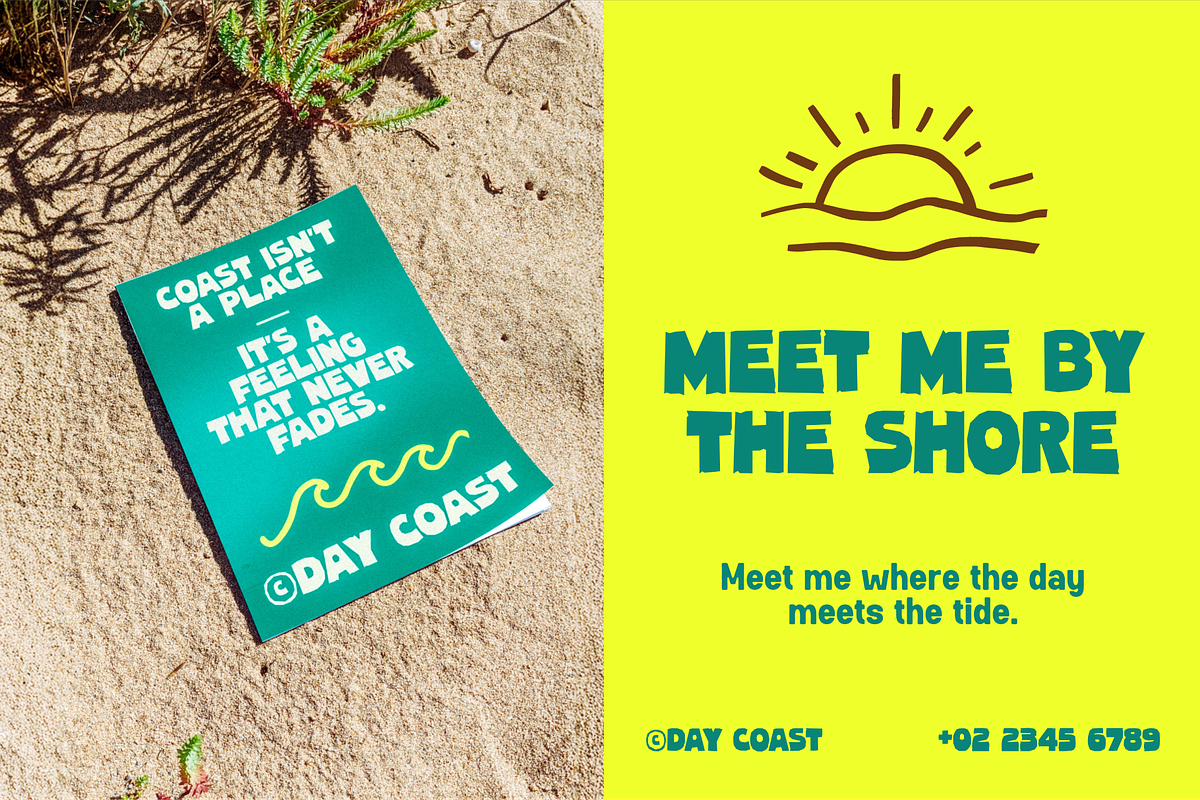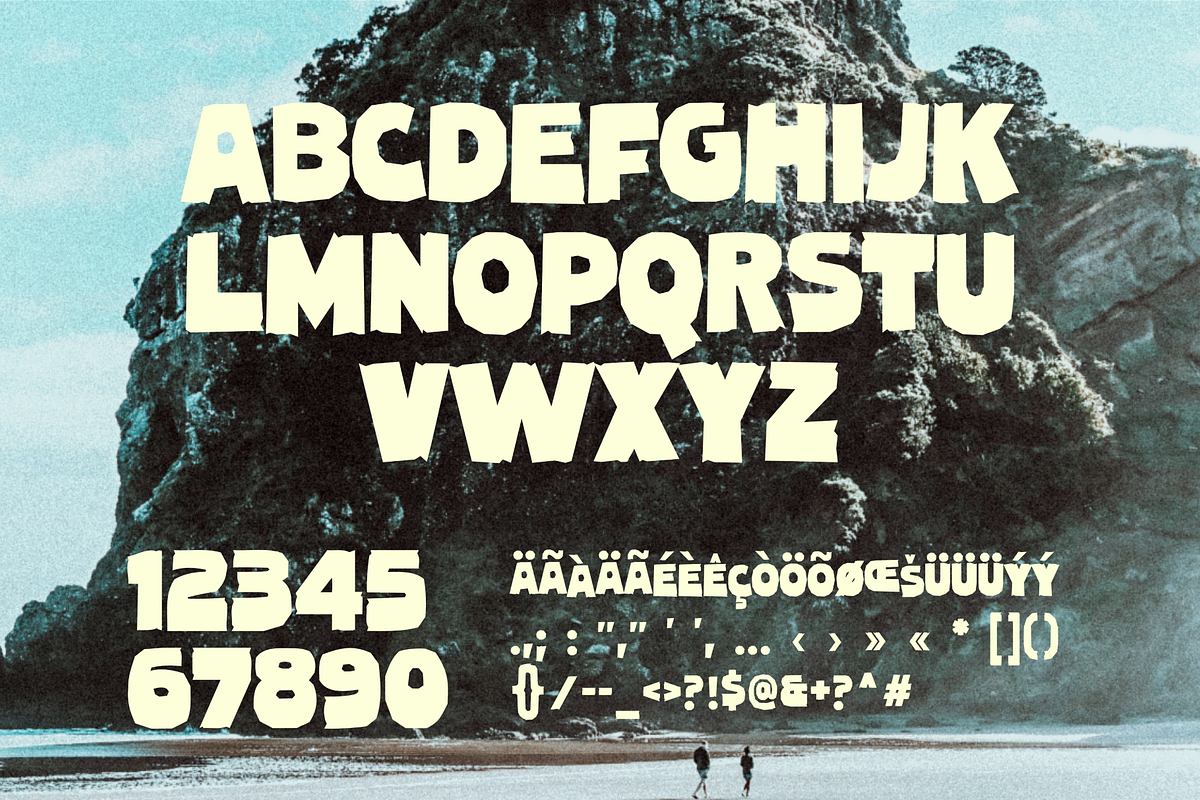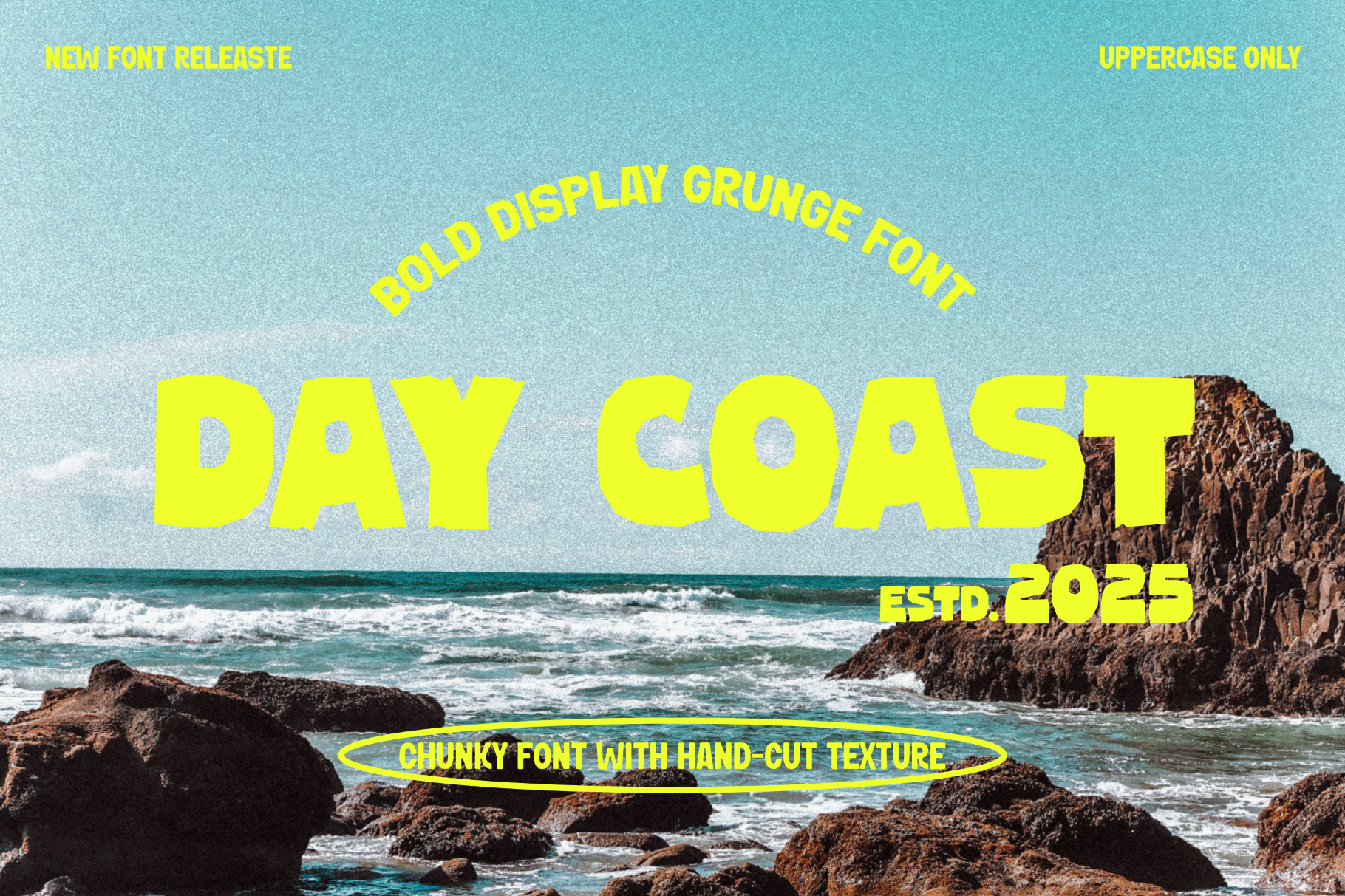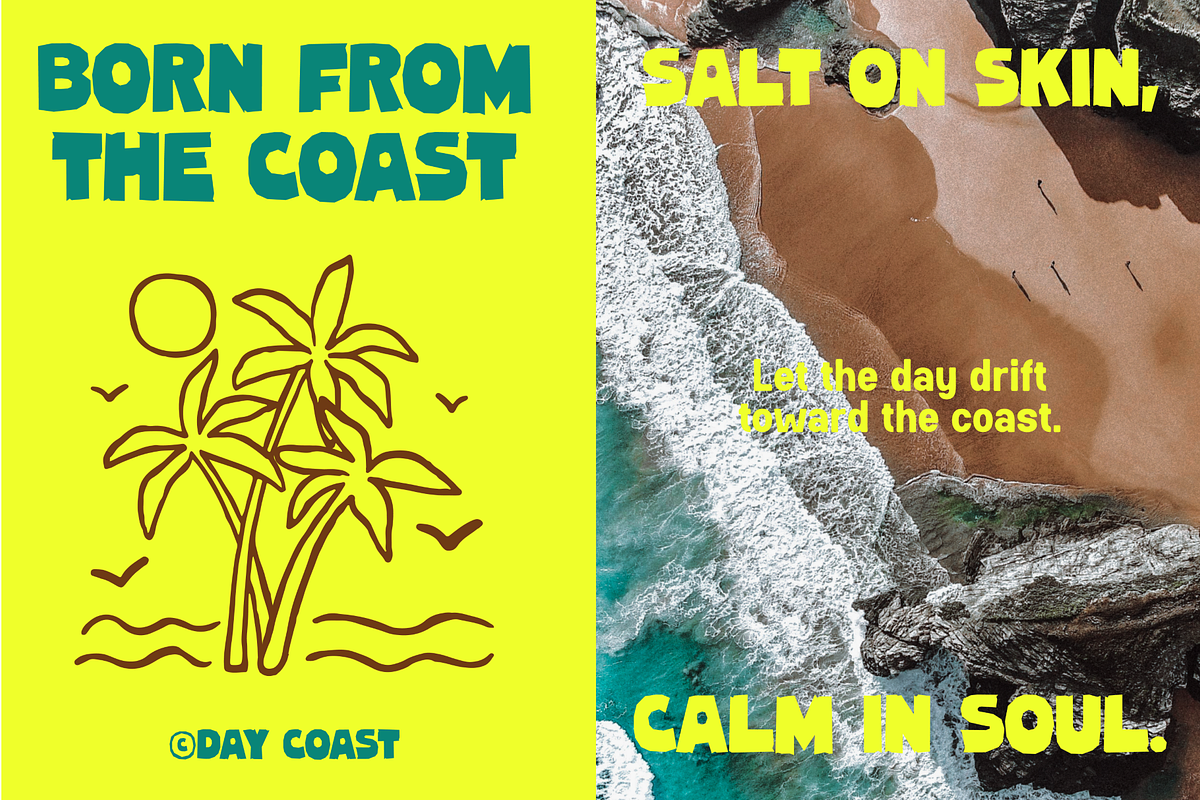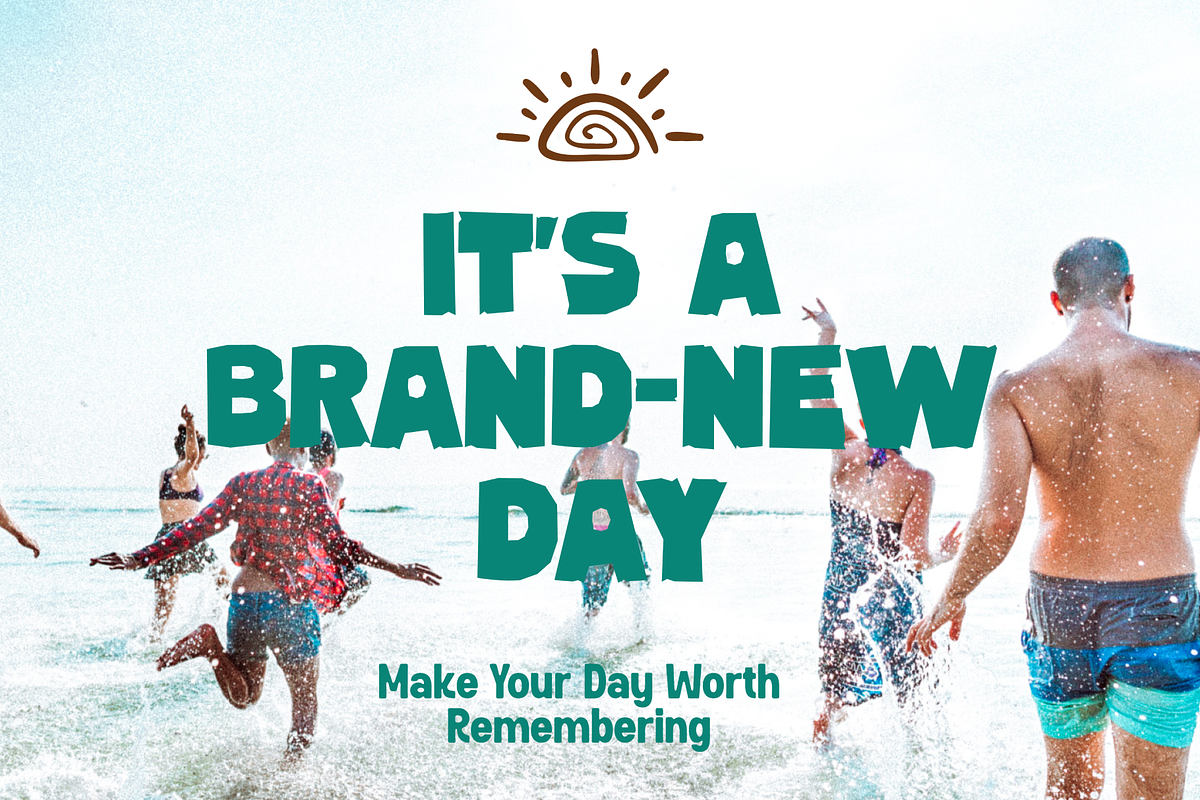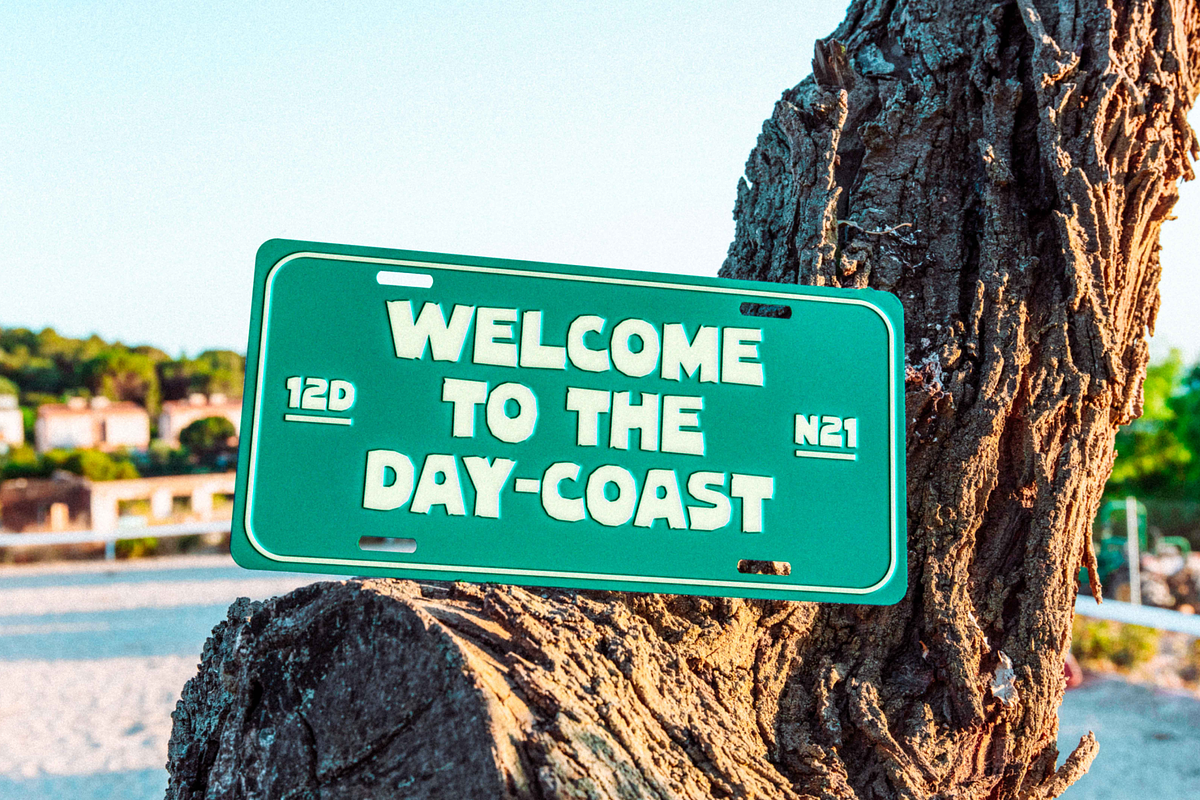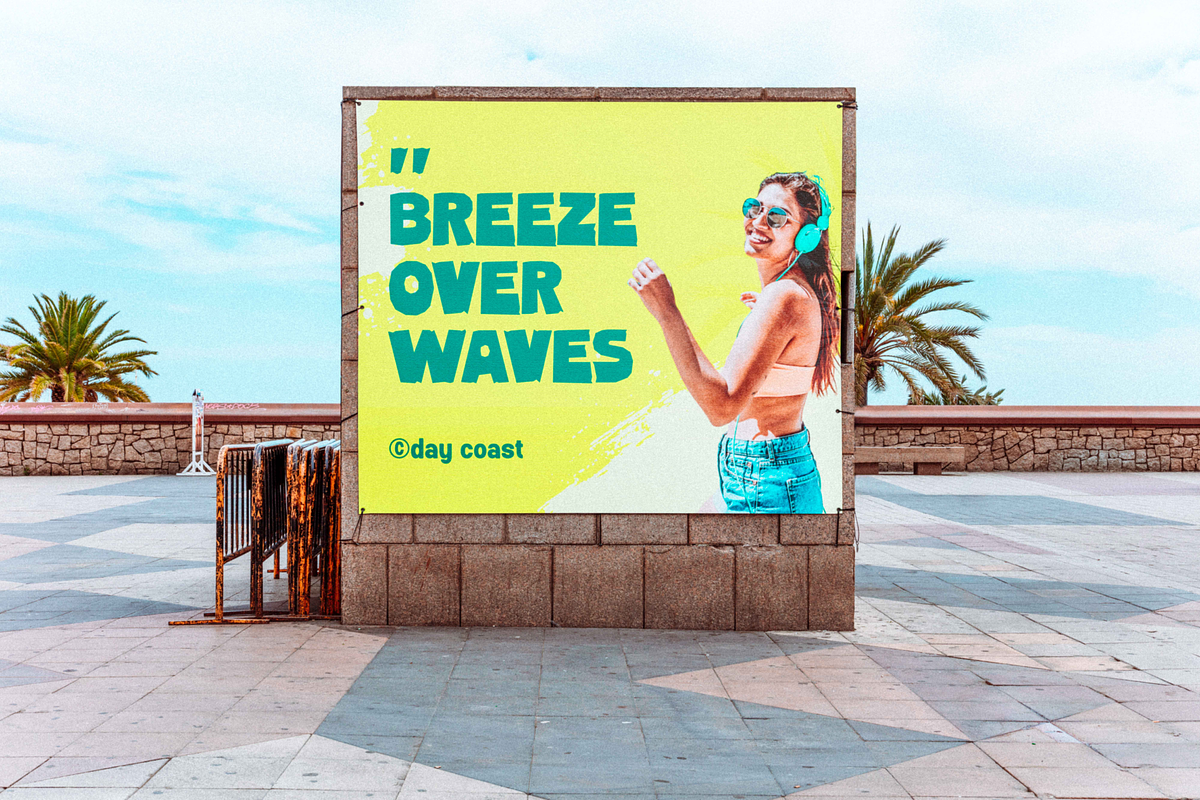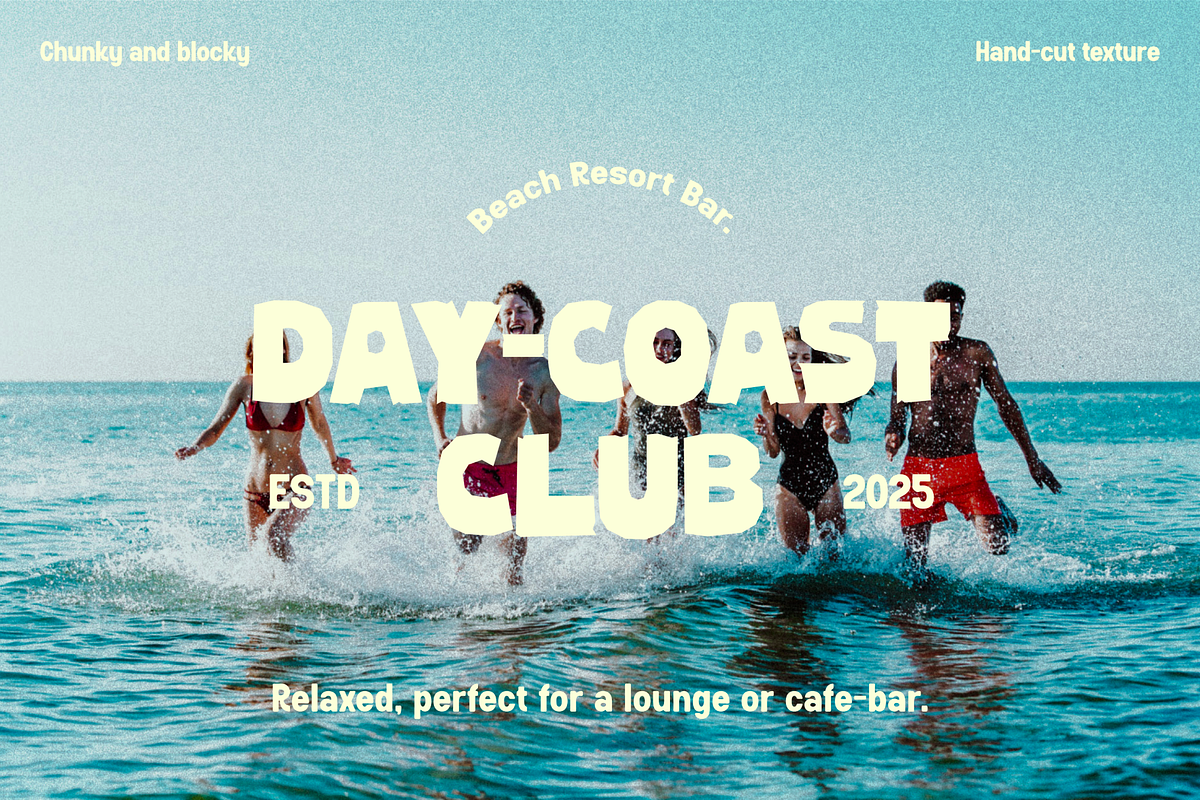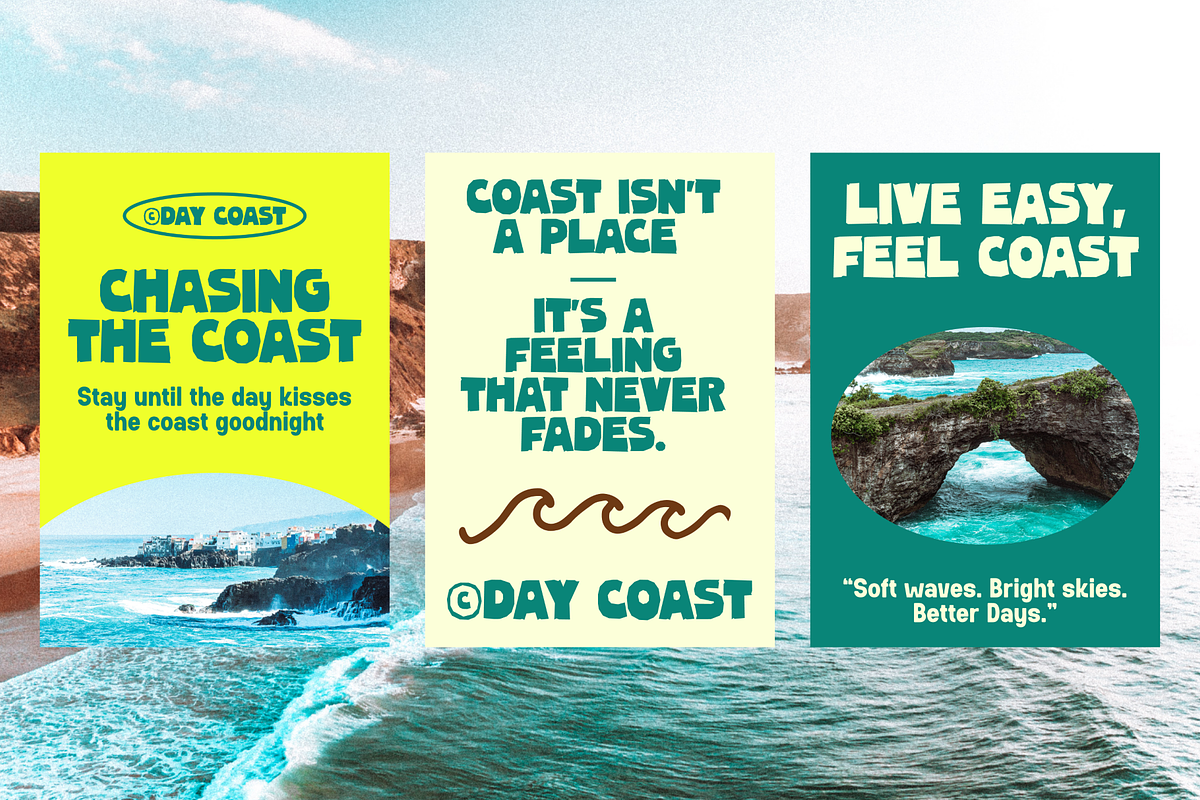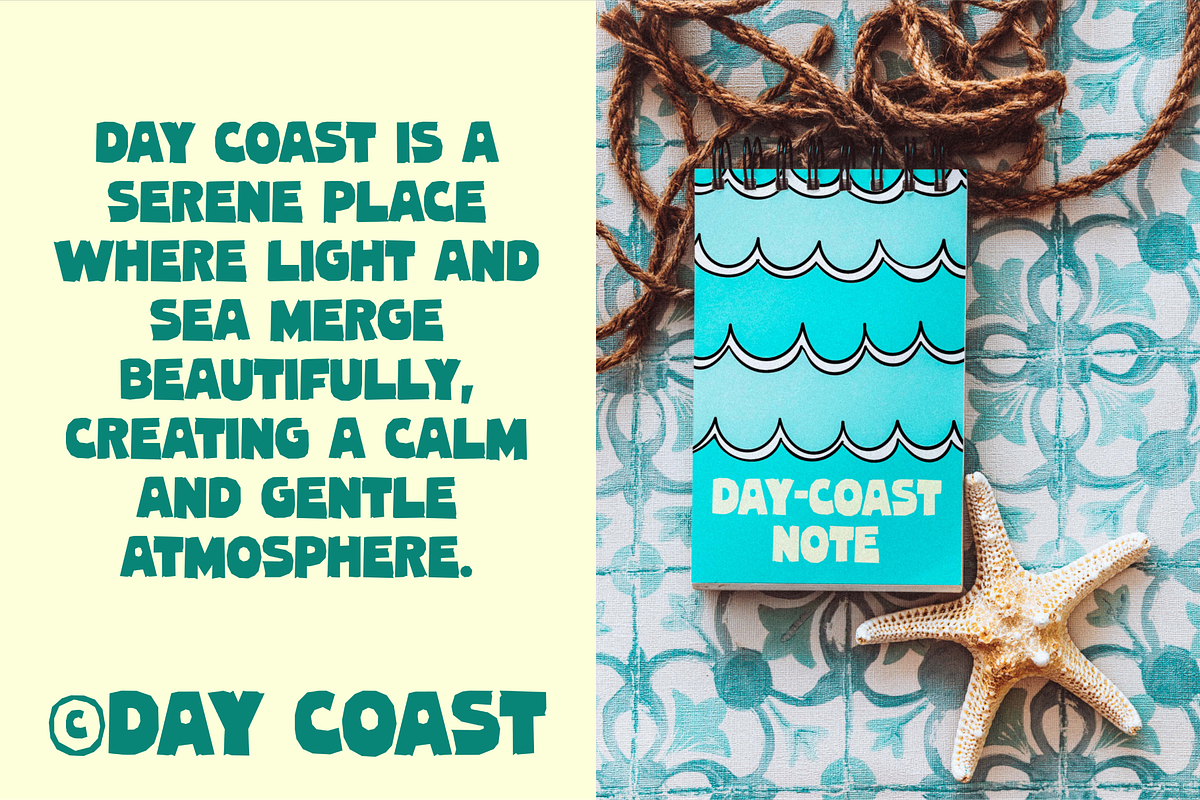
Day Coast - Display Grunge Font
Day Coast is a bold display grunge font with a chunky, hand-cut texture perfect for vintage posters, surf brands, outdoor apparel, and retro design projects. Its rough, organic edges bring a coastal adventure vibe and strong visual impact—ideal for standout headlines, branding, and creative typography compositions.